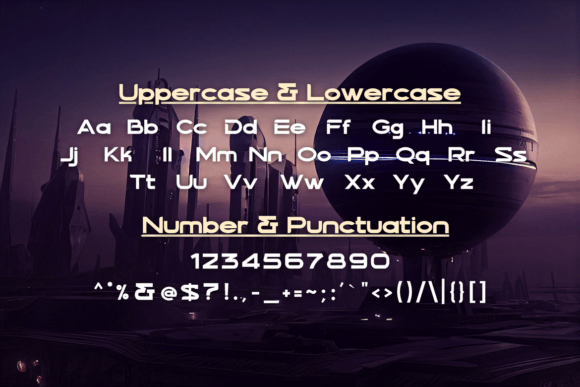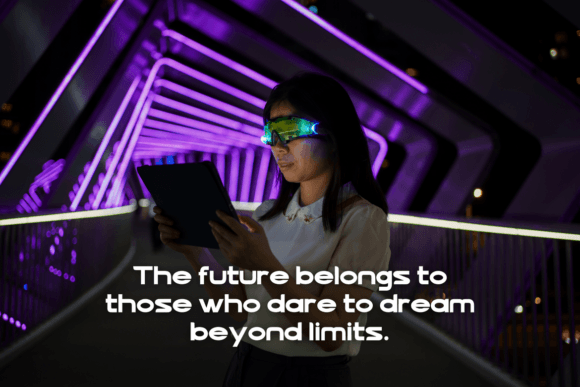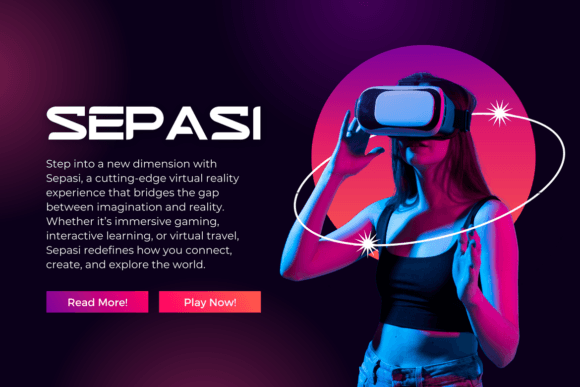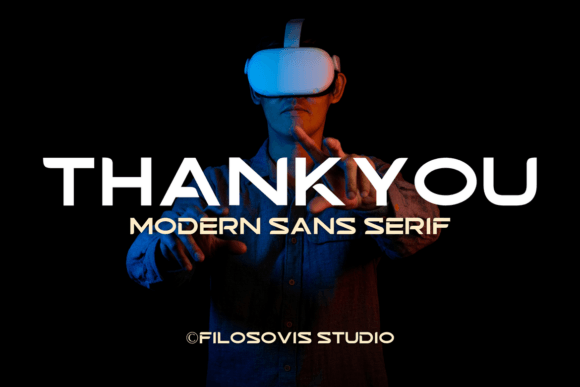
Introduction to Sepasi Font Font
Fonts play a crucial role in design, and the Sepasi Font font is a typeface that brings both character and versatility to any project. Whether you’re working on a branding project, a website, or a print design, the Sepasi Font font offers a unique style that can elevate your work.
Introducing Sepasi – a superior, modern display font that articulates versatility at its best, bridging the gap between print and digital realms effortlessly.
Effortlessly versatile, Sepasi transcends traditional typeface boundaries, making it an outstanding choice for brand identities, logo designs, and website typography .
Key Features of Sepasi Font Font
The Sepasi Font font is more than just a typeface – it’s a design tool that helps you communicate your message with style and clarity. Its unique character set and versatile design make it suitable for a wide range of applications, from elegant invitations to bold headlines.
With its carefully crafted letterforms and balanced proportions, the Sepasi Font font ensures readability and visual appeal across all mediums.
What makes Sepasi Font font special?
The Sepasi Font font stands out with its unique design, exceptional readability, and versatility across various design applications.